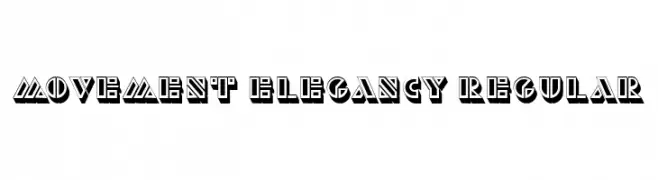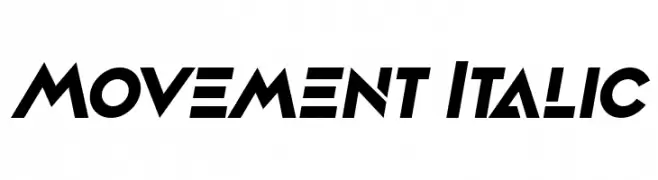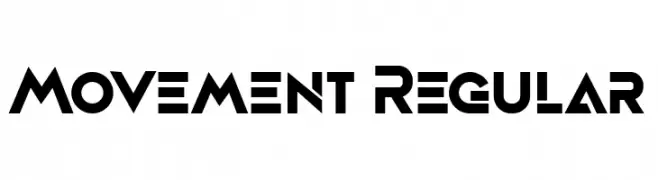
A bold, 3D geometric font with an art deco influence, ideal for striking headlines.
A bold, italic, and geometric font with a modern, dynamic style.
A bold, geometric font with sharp angles and a modern aesthetic.